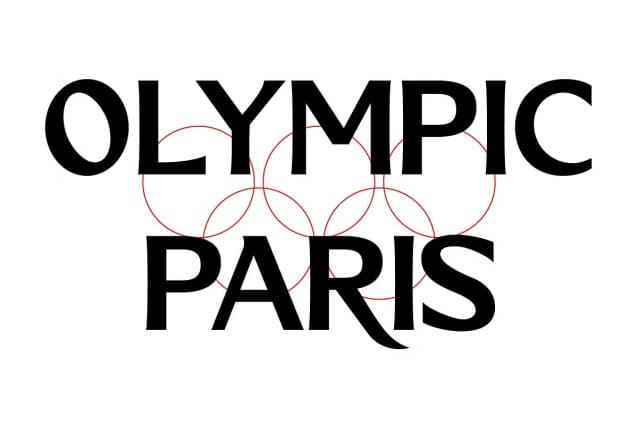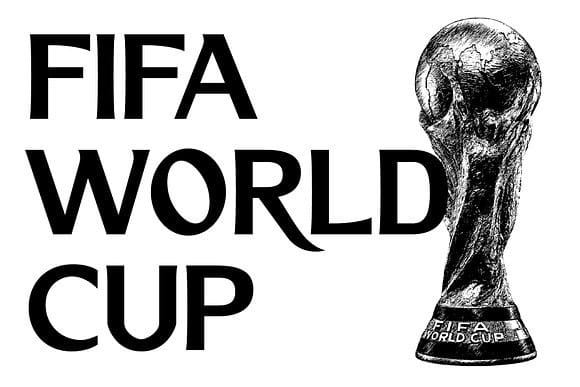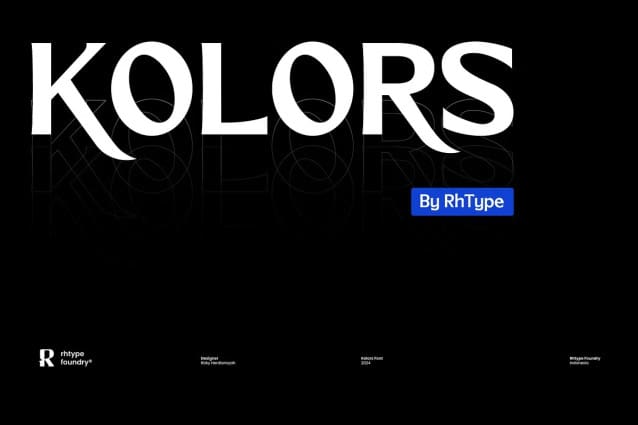
Kolors Font
Kolors Font is a bold, daring, and sporty sans-serif display font. Crafted with meticulous attention to detail and care, it embodies its own unique characteristics.